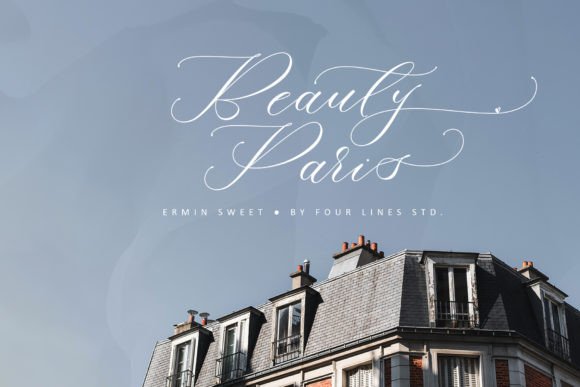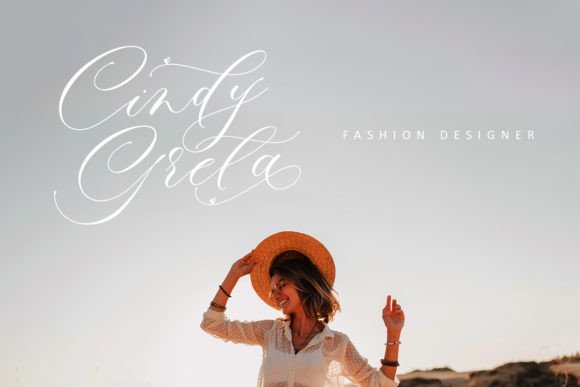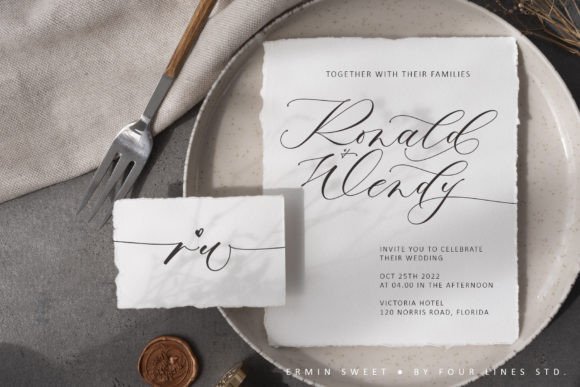
Introduction to Ermin Sweet Font
As designers, we’ve all been there – staring at a blank canvas, desperately searching for the perfect font to bring our creative vision to life. It’s that moment when the perfect font can make all the difference, elevating our design from good to great. And that’s exactly what the Ermin Sweet Font does – it adds a touch of elegance and sophistication to any design project.
Ermin Sweet Font is a beautiful and delicate script font that’s sure to captivate your audience. With its high-quality design and transparent background, it’s the perfect addition to any creative project. Whether you’re designing a logo, a brochure, or a website, Ermin Sweet Font is a valuable resource that’s sure to make your design stand out.
Key Features of Ermin Sweet Font
- High-quality design resource ideal for creative projects, offering a unique and elegant touch.
- Transparent background allows for seamless integration with any design, providing flexibility and versatility.
- Ermin Sweet Font comes in a range of sizes, from 12pt to 72pt, catering to various design requirements.
- High-resolution design (300 DPI) ensures crisp and clear typography, even when scaled up or down.
- Designed with a focus on readability and aesthetics, making it perfect for branding, logos, and other creative projects.
Honest Review: Ermin Sweet Font
I recently stumbled upon the Ermin Sweet Font while searching for a unique design resource to elevate my creative project. I was pleasantly surprised by the high quality of this font, which is perfect for adding a touch of elegance to any design.
- ✨ High-quality design with clean lines and a minimalist aesthetic
- ⚠️ Limited font sizes and styles available, which may not be suitable for all design needs
- ⚠️ Some users may find the font too sweet or cutesy for certain design projects
Overall, I’m impressed with the Ermin Sweet Font. While it may not be perfect, it’s a valuable addition to any designer’s toolkit. The transparent background and high-quality design make it an excellent choice for designers looking to add a touch of sophistication to their work.
Ermin Sweet Font
Tips for Getting the Most Out of the Ermin Sweet Font
To get the most out of the Ermin Sweet Font, experiment with different font sizes, colors, and styles to find the perfect combination for your design. You can also use the font in conjunction with other design elements, such as images and graphics, to create a visually appealing design. The Ermin Sweet Font is a great addition to any designer’s toolkit.
The Ermin Sweet Font is suitable for a wide range of design projects, including graphic design, digital art, and typography. It’s also a great resource for designers who want to create professional-looking designs with a free download option. The font’s transparent background makes it ideal for designs that require a clean and minimalist look.